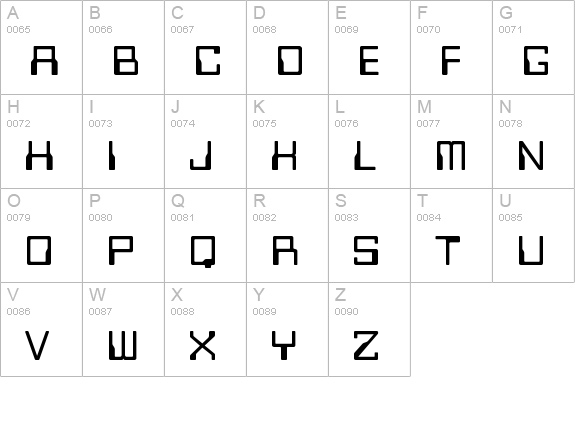
Bitwise Font Details
Introducing Bitwise font, a modern and sleek typeface perfect for digital projects and technology-themed designs. Bitwise font features clean lines and a futuristic aesthetic that will make your text stand out. Whether you're creating a website, app interface, or logo, Bitwise font is the ideal choice for adding a contemporary touch to your work. What's even better is that Bitwise font is completely free to use! You can easily download this versatile font at FontsMarket.com and start incorporating it into your projects today. Don't miss out on the opportunity to enhance your designs with the sophisticated look of Bitwise font. Download it now and elevate your creative work to the next level.